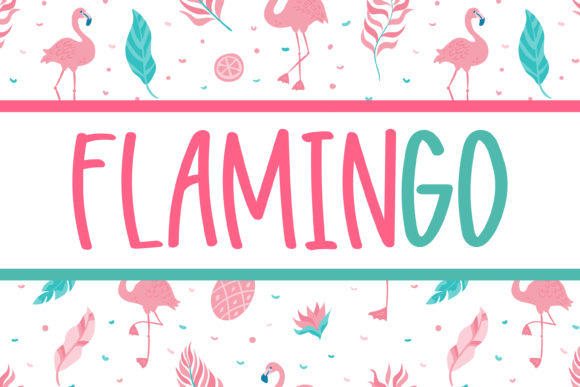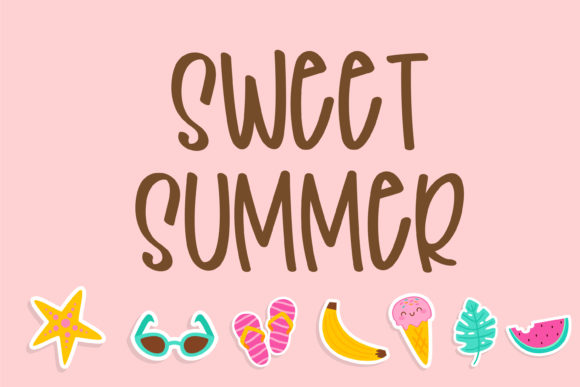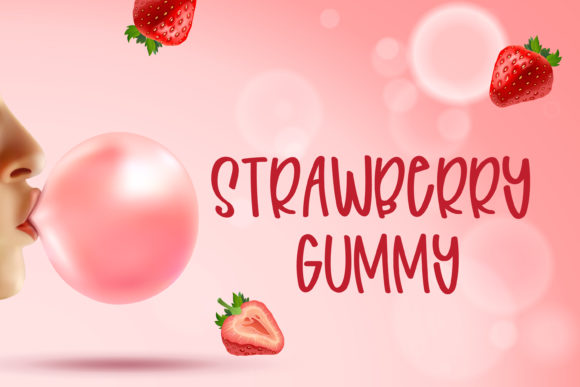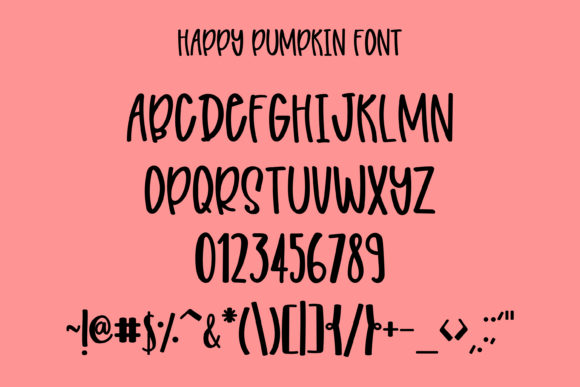
Introducing Happy Pumpkin Font: The Perfect Addition to Your Design Collection
Are you tired of using the same old fonts in your designs? Do you want to add a touch of whimsy and joy to your creative projects? Look no further than Happy Pumpkin Font, a cute and quirky display font that’s sure to make your designs stand out.
What is Happy Pumpkin Font?
Happy Pumpkin Font is a unique and playful display font that’s perfect for adding a touch of autumnal charm to your designs. With its bold and bubbly letters, this font is sure to bring a smile to anyone’s face. Whether you’re designing a Halloween-themed project, a fall-inspired craft, or simply want to add some personality to your text, Happy Pumpkin Font is the perfect choice.
Why You’ll Love Happy Pumpkin Font
So, what makes Happy Pumpkin Font so special? Here are just a few reasons why you’ll love adding this font to your design collection:
- Cute and Quirky: Happy Pumpkin Font is the epitome of cute and quirky. Its playful letters are sure to add a touch of joy to any design.
- Versatile: This font is perfect for a wide range of design projects, from Halloween-themed crafts to fall-inspired designs, and even everyday projects that need a bit of personality.
- Easy to Read: Despite its playful nature, Happy Pumpkin Font is still easy to read, making it perfect for use in titles, headings, and other display text.
- Unique: Happy Pumpkin Font is one-of-a-kind, ensuring that your designs will stand out from the crowd.
How to Use Happy Pumpkin Font
Using Happy Pumpkin Font in your designs is easy. Here are a few ideas to get you started:
- Halloween-themed Projects: Use Happy Pumpkin Font to create spooky-ooky Halloween designs, such as party invitations, trick-or-treat signs, and more.
- Fall-inspired Crafts: Add a touch of autumnal charm to your fall-inspired crafts, such as Thanksgiving cards, fall-themed planners, and more.
- Everyday Designs: Use Happy Pumpkin Font to add some personality to your everyday designs, such as social media graphics, blog posts, and more.
Tips for Getting the Most Out of Happy Pumpkin Font
Here are a few tips for getting the most out of Happy Pumpkin Font:
- Experiment with Colors: Happy Pumpkin Font looks great in a variety of colors, so don’t be afraid to experiment and find the perfect hue for your design.
- Pair with Other Fonts: Try pairing Happy Pumpkin Font with other fonts to create a unique and eye-catching design.
- Use in Combination with Images: Happy Pumpkin Font looks great when used in combination with images, such as illustrations, photographs, and more.
In conclusion, Happy Pumpkin Font is a cute and quirky display font that’s sure to add a touch of joy to your designs. With its bold and bubbly letters, this font is perfect for a wide range of design projects, from Halloween-themed crafts to everyday designs. So why wait? Add Happy Pumpkin Font to your design collection today and start creating unique and eye-catching designs that are sure to stand out.